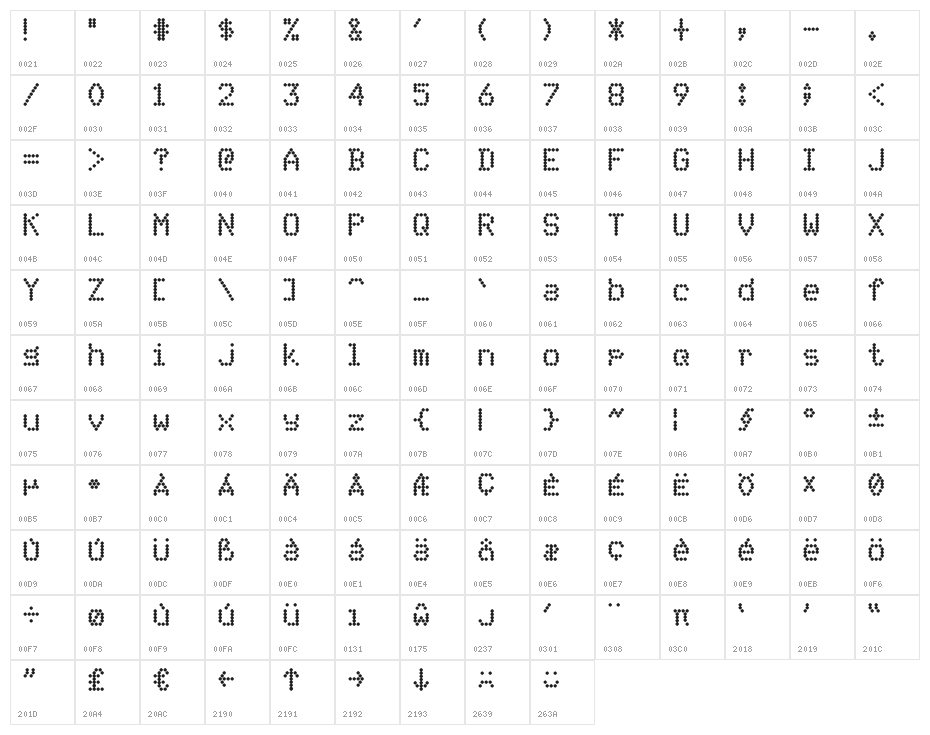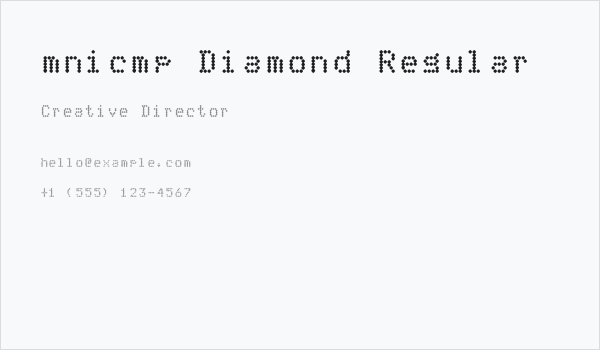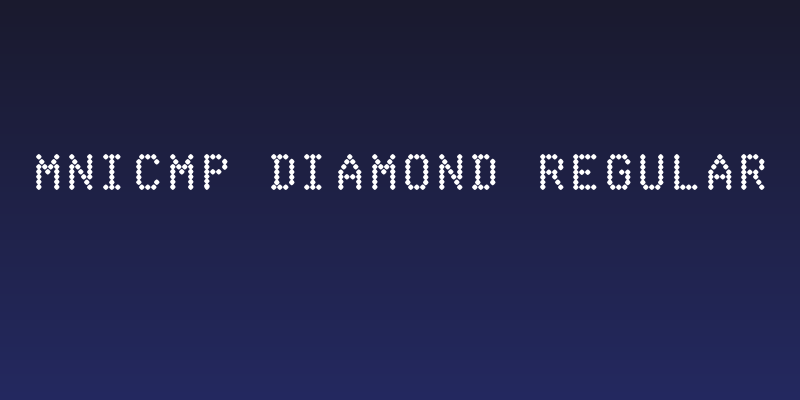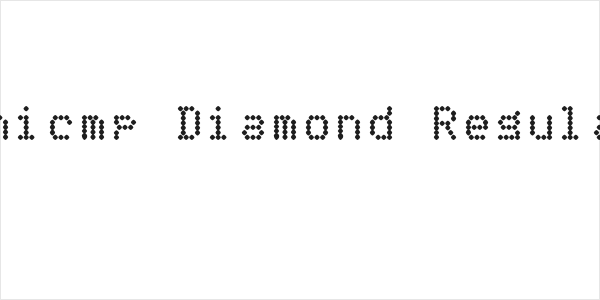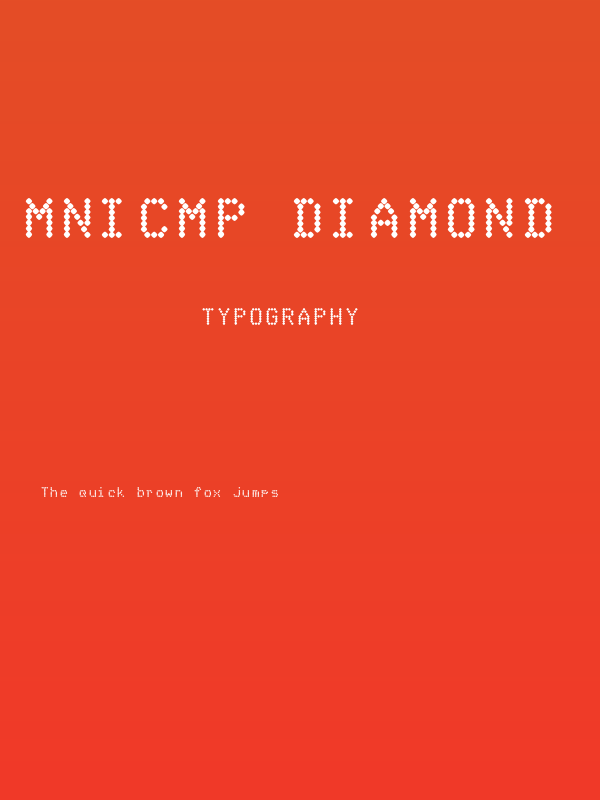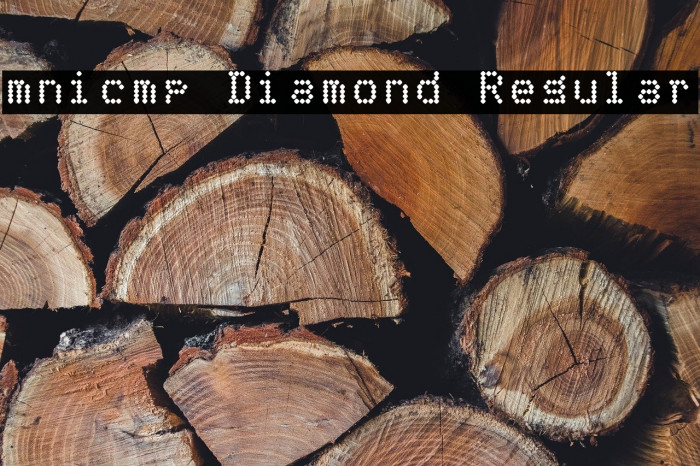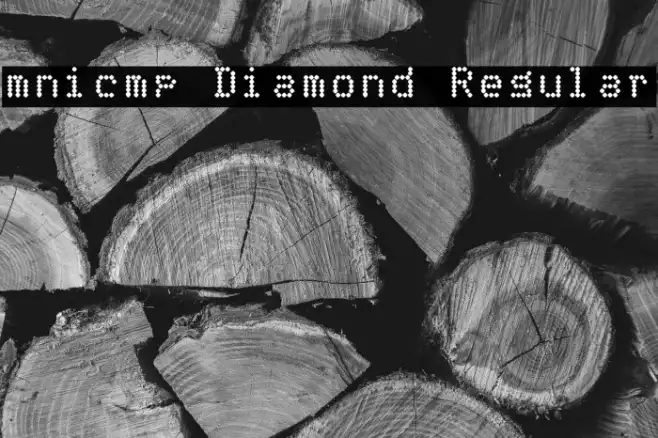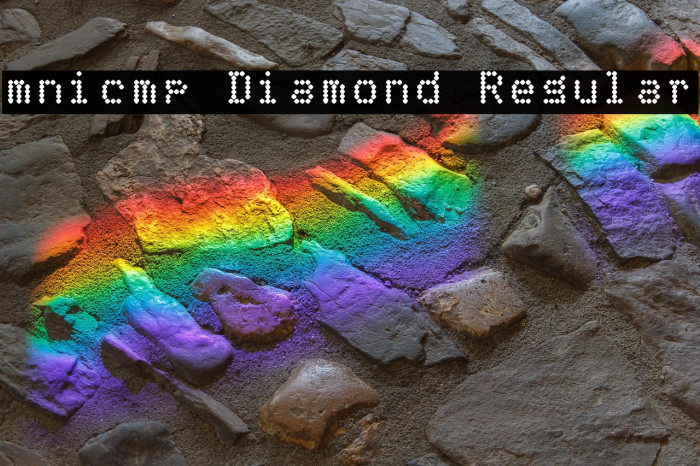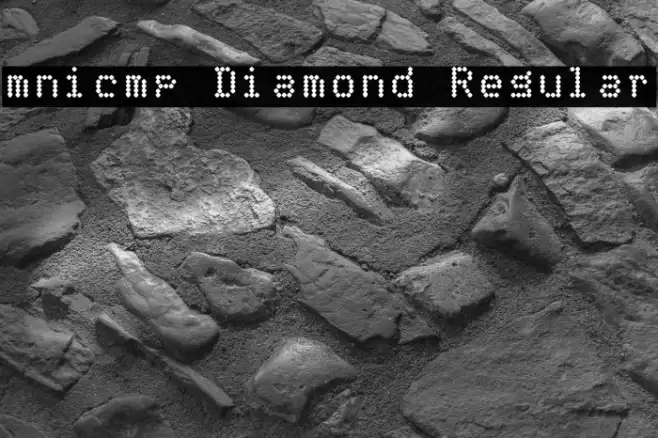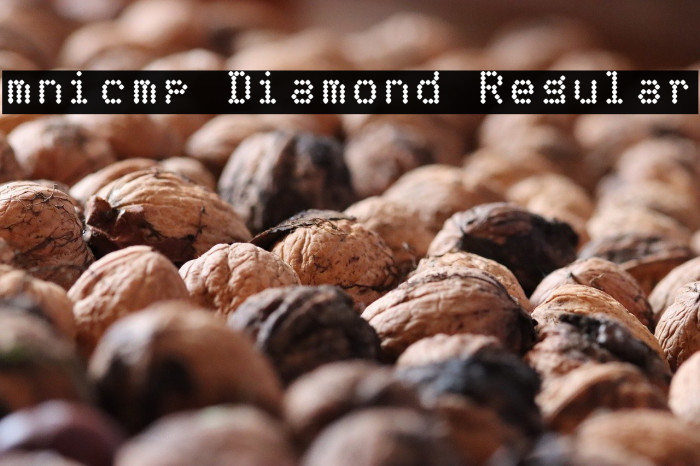
mnicmp Diamond Regular Font
mnicmp Diamond Regular Description
This font features a unique design where each character is constructed from a series of small diamond shapes, creating a pixelated and geometric appearance. The uppercase and lowercase letters, as well as numbers and special characters, maintain a consistent style that emphasizes uniformity and structure. The overall look is modern and digital, reminiscent of early computer graphics or LED displays. The spacing between characters is normal, allowing for clear readability despite the intricate design. This font's distinct style makes it suitable for creative projects that require a futuristic or tech-inspired aesthetic.
| Use Case | Logos, Headlines, Digital displays |
| Proposed Projects | Ideal for digital art, tech-themed posters, video game graphics, and modern branding projects. |